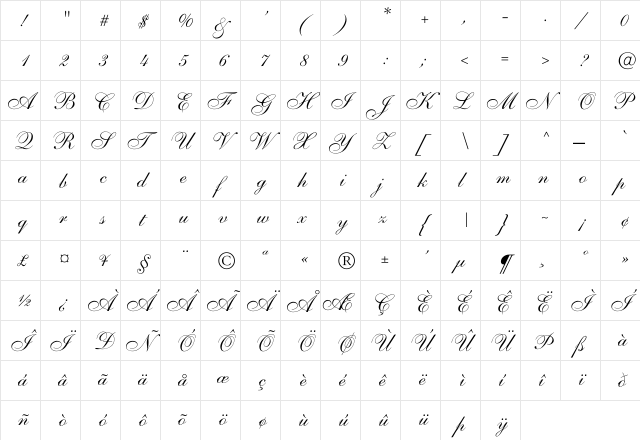
ShelleyAllegroScript-Normal Regular
Design Context for ShelleyAllegroScript-Normal Typeface
ShelleyAllegroScript-Normal brings a calligraphic fluidity to the page — its connecting strokes and expressive curves give it an unmistakably human quality.
Font Pairing: Combine ShelleyAllegroScript-Normal with a simple geometric sans for maximum contrast — the tension between flowing curves and clean structure is a classic typographic pairing.
Pro Tip: Pair ShelleyAllegroScript-Normal with a clean sans-serif for supporting text. The contrast between fluid script and geometric structure creates an elegant typographic hierarchy.